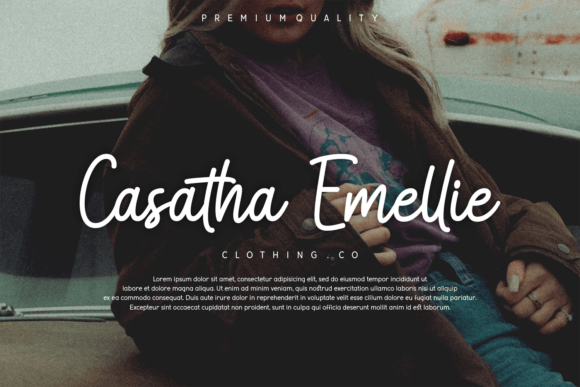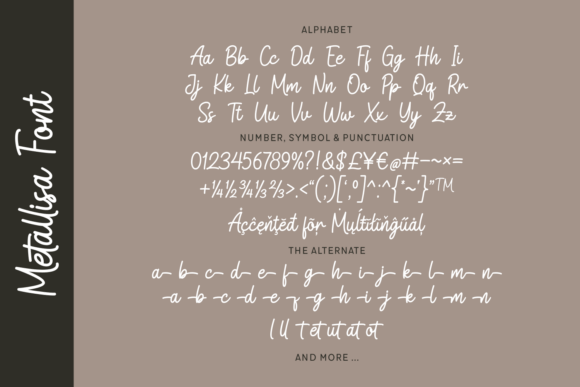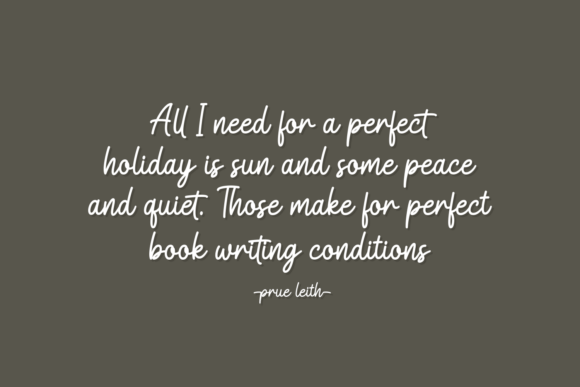
Introduction to Metallisa Font
Metallisa is a striking monoline script font with smooth, flowing strokes and unique front and back swashes that add an extra layer of personality.
Its clean and dynamic design makes it ideal for logos, signage, travel-inspired projects, and modern branding .
Key Features of Metallisa Font
Why Choose Metallisa Font?
Metallisa Font offers exceptional quality and versatility, making it a valuable addition to your design toolkit. Whether you’re creating for personal projects or commercial use, Metallisa Font delivers professional results.